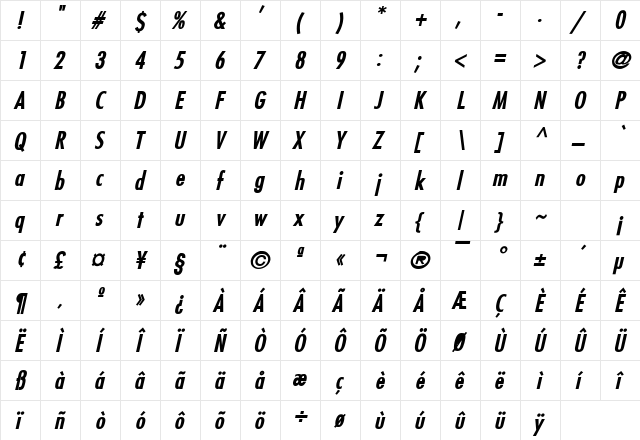
Fuji Bold Italic
Design Context for Fuji Typeface
Fuji takes a measured approach to typography — its balanced proportions and neutral character make it a reliable workhorse for both digital and print work. Its italic angle brings a sense of urgency and motion to the letterforms. The heavy weight commands attention and anchors typographic hierarchies.
Pro Tip: Use Fuji for emphasis, pull quotes, and subheadings where its slanted energy can add rhythm to the layout.